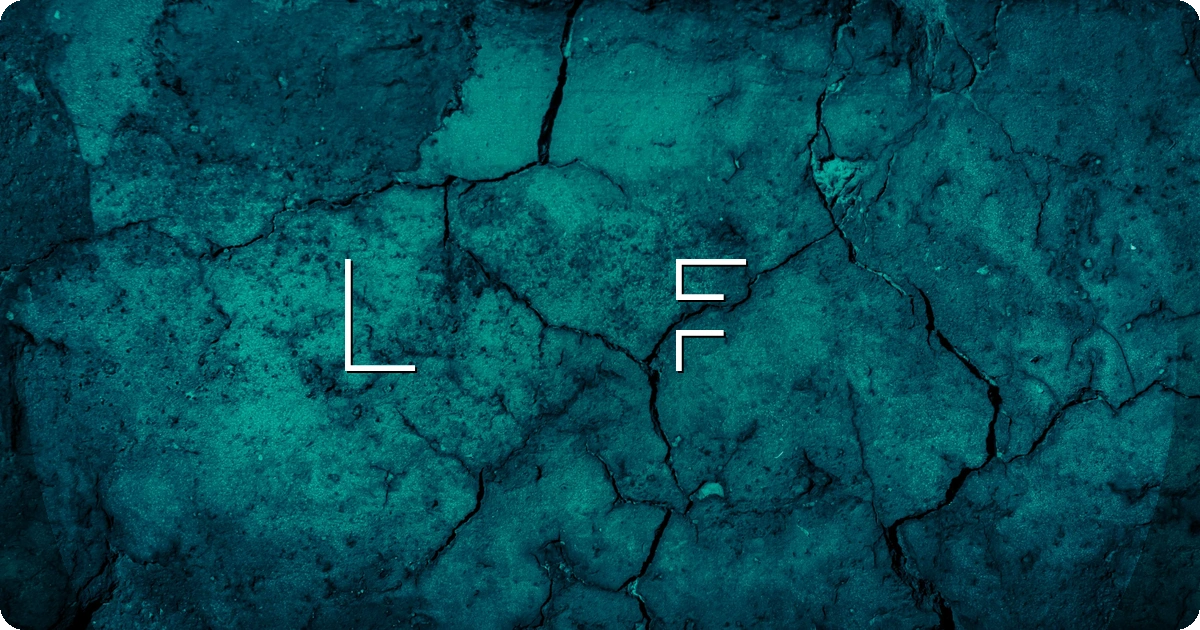
Foxus Font is a nice sans-serif design the style has a cleaner and less untidy appearance. It is the best typeface to use for adding a special feel to your designs. You can impress the audience by using this typeface because it has strong, thick strokes that make it easier to read and more beautiful.
Main Features of Foxus Font
It features 362 excellent bold characters, including commas, numbers, punctuation in upper and lower case, phonetic symbols, and excellent texture styles. The Typeface family has stylish, bold designs that make this font popular among designers who want to create amazing designs for their projects. Also, the free version is available as well.
This fantastic typeface is available for free download from our website, but only for private use. It has a clean design with highlights of amazing textual styles that give the content an outstanding design. It is an ultra-modern typeface. The font has a distinct style and appearance.
Its fantastic characters and unusual glyphs provide your projects with a distinctive appearance. It is a font for tattoos. It was widely utilized in tattoo designs.
They made this typeface so attractive that it appeals to everybody. It is frequently used by designers in many brand projects. It quickly became everyone’s favorite after being released.
Weights and Styles of Foxus Font
- Foxus Thin
- Foxus Light
- Foxus Regular
- Foxus Medium
- Foxus Semi Bold
- Foxus Bold
- Foxus Extra Bold
- Foxus Black
Use of Foxus Font in Various Projects
This typeface family can be used to create a wide range of designs. It is the best font for your web pages and logo designs, and it will surely give your designs a more organic feel. Use this typeface for creating a more professional design. With this font, you will be able to create a unique design. In addition, you’ll save time as well. Various articles have been created with this font.
Inviting, branding, rebranding, logos, business cards, and quotes can all be made with this typeface. Print and digital media can use this text style. The font family supports multiple languages. It also makes very well paired with restora font.
Just give a chance to this style for creating your logos, billboards, album covers, social media posts, advertisements, theme designs, PowerPoint presentations, banners, templates, and other related items.
It is the best typeface for making fascinating headlines and titles, and it works well for all types of unique. It is suitable for your standard reports, bills, quotes, product titles, and many other documents.
This highly readable typeface is utilized across a wide range of devices and is suitable including both visual and printable projects, like many other serif types. Numerous huge and small projects, including webpages, articles, booklets, and many more, employ this typeface.
This typeface is widely used by developers in a variety of design programs, including Adobe Illustrator, Photoshop, Canva, and Indesign. It works best when used for symbol designs, wall paintings, signature designs, and several other uses.